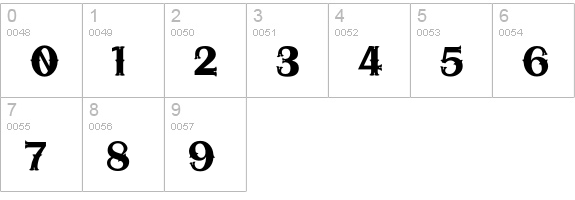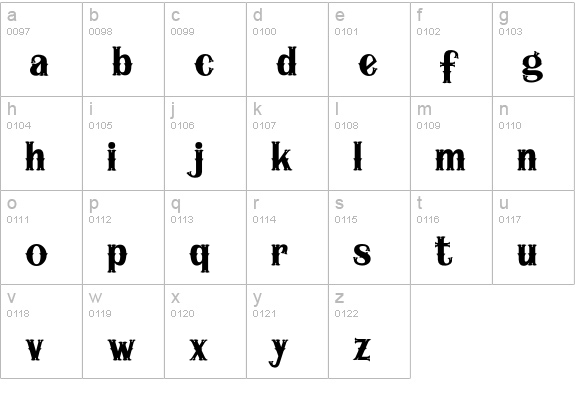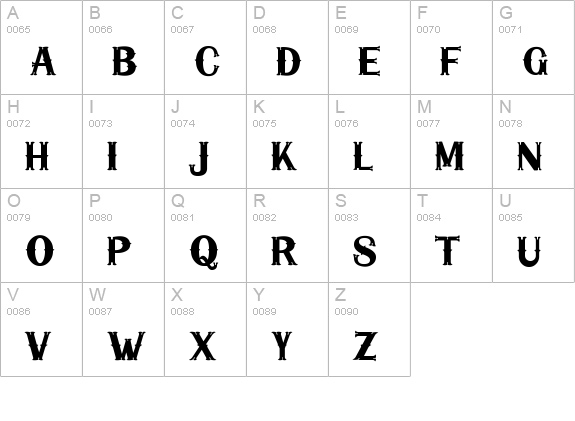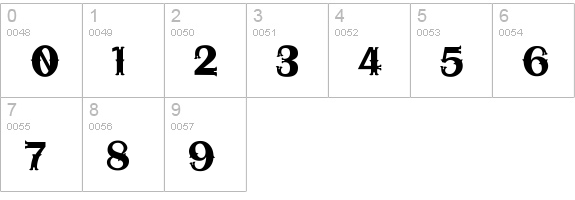
Iorek Byrnison Font Details
Iorek Byrnison font is a striking and bold typeface that exudes power and sophistication. Its strong lines and distinctive curves make it perfect for adding a touch of strength and authority to any design project. Whether used for headlines, logos, or branding materials, Iorek Byrnison font commands attention and leaves a lasting impression. The best part? Iorek Byrnison font is available for free download at FontsMarket.com. This means you can easily incorporate this impressive typeface into your projects without any cost. Don't miss out on the opportunity to elevate your designs with the timeless elegance of Iorek Byrnison font. Download it today and let your creativity shine!